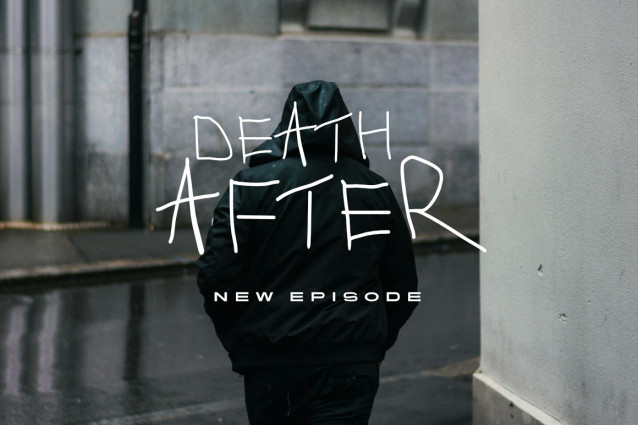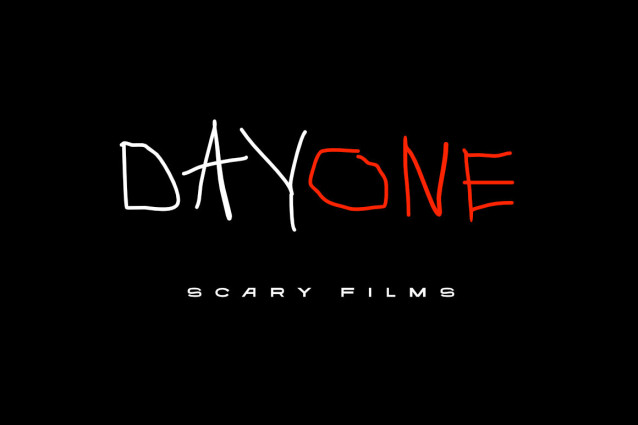
Vanilla Cream Ox Font
Vanilla Cream Ox Font, It would be a perfect choice to design posters, affiches, logos, t-shirt and magazine prints, eye-pleasing typographic designs and more.